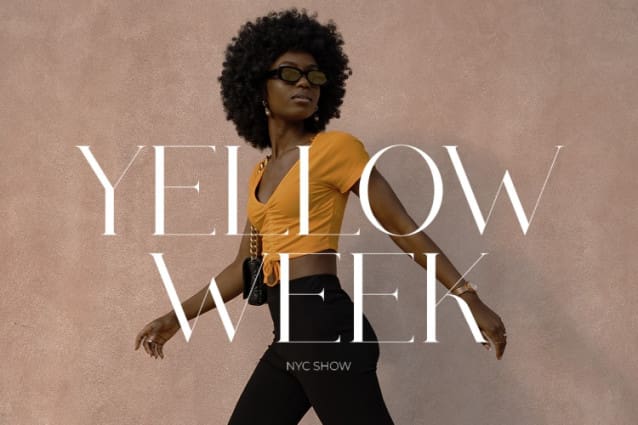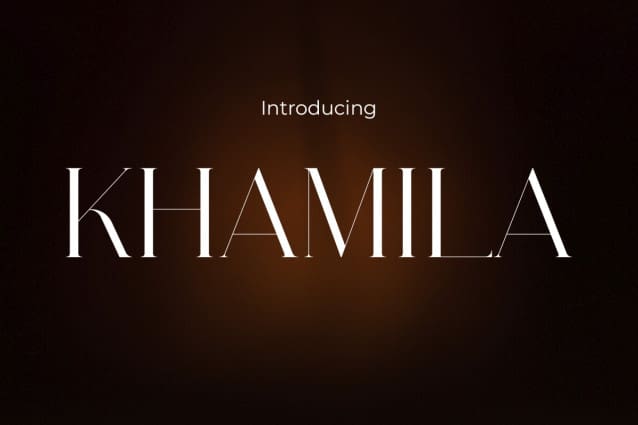
Khamila Font
Khamila Font, to evoke an aura of elegance and fashion. Each character creates a captivating impression of grace, making every design project more extraordinary. Khamila is not just a font; it’s a typographic masterpiece that brings a modern and elegant touch. Suitable for various purposes, this font will lend a unique and stylish appearance to logos, quotes, invitations, and more. Enhance your creativity with Khamila, where each letter becomes a statement of style and beauty